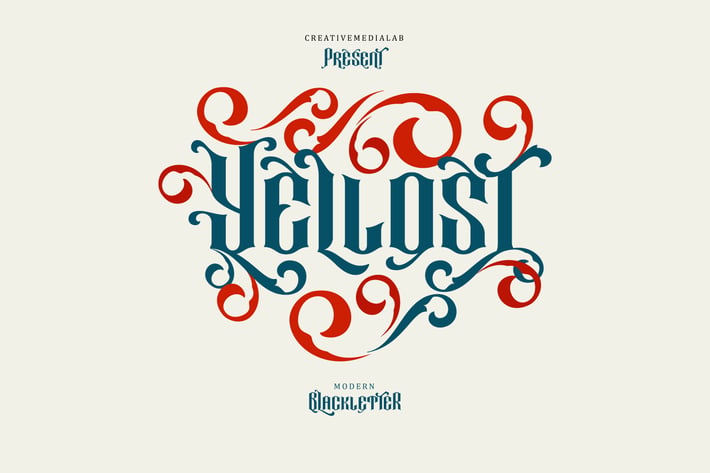
Yellost Font
Introducing Yellost Modern Blackletter, a unique blackletter for your design.
With tons of alternates to combine with each character to make a unique and strong word for your next projects.
Good for display font, logo, tattoo font, gothic and many more and Bonus vector ornaments in the download file.